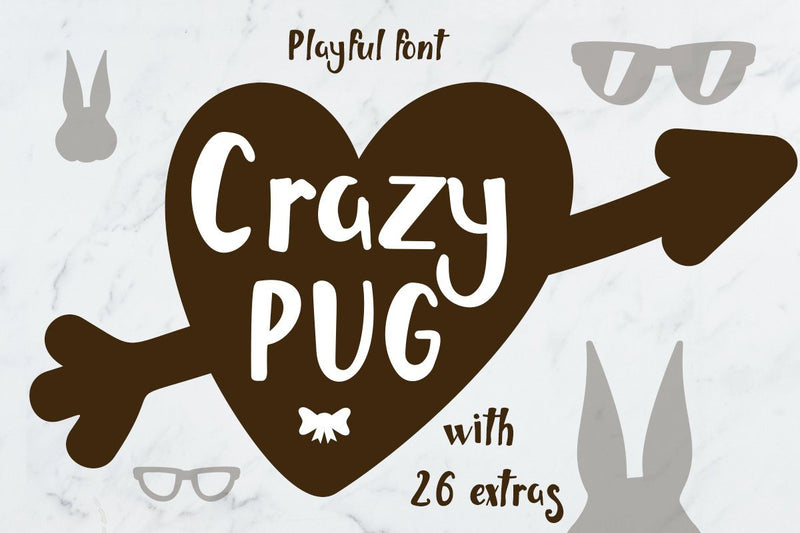
Crazy Pug font with extra designs for Valentine, Mardi Gras and Easter
Crazy Pug font with extra designs for Valentine, Mardi Gras and Easter dingbats.
It is a modern hand drawn type for cutting machines supply. It has hand lettered characters for a prefect match, making the typeword playful and cutesy. The type comes with hand lettered uppercase and lowercase.
Extra hand drawn
Extra design like eggs, bunny silhouettes, hats, eyeglasses, bunny ears for boys and girls, bow tie, bead and eyelashes dingbats making this font so versatile! Use it for Holiday invitations and printable decorations, clothing, works great for heat transfer projects, cutting, online banners, websites, logo designs, packaging and stationary.
Where to use the font
The font is perfect for all types of printing techniques. Use it on embroidery, laser cut, gold foil. Also works great with cutting machines being very easy to cut. Just look in the photos so you can see what you can do with this font!